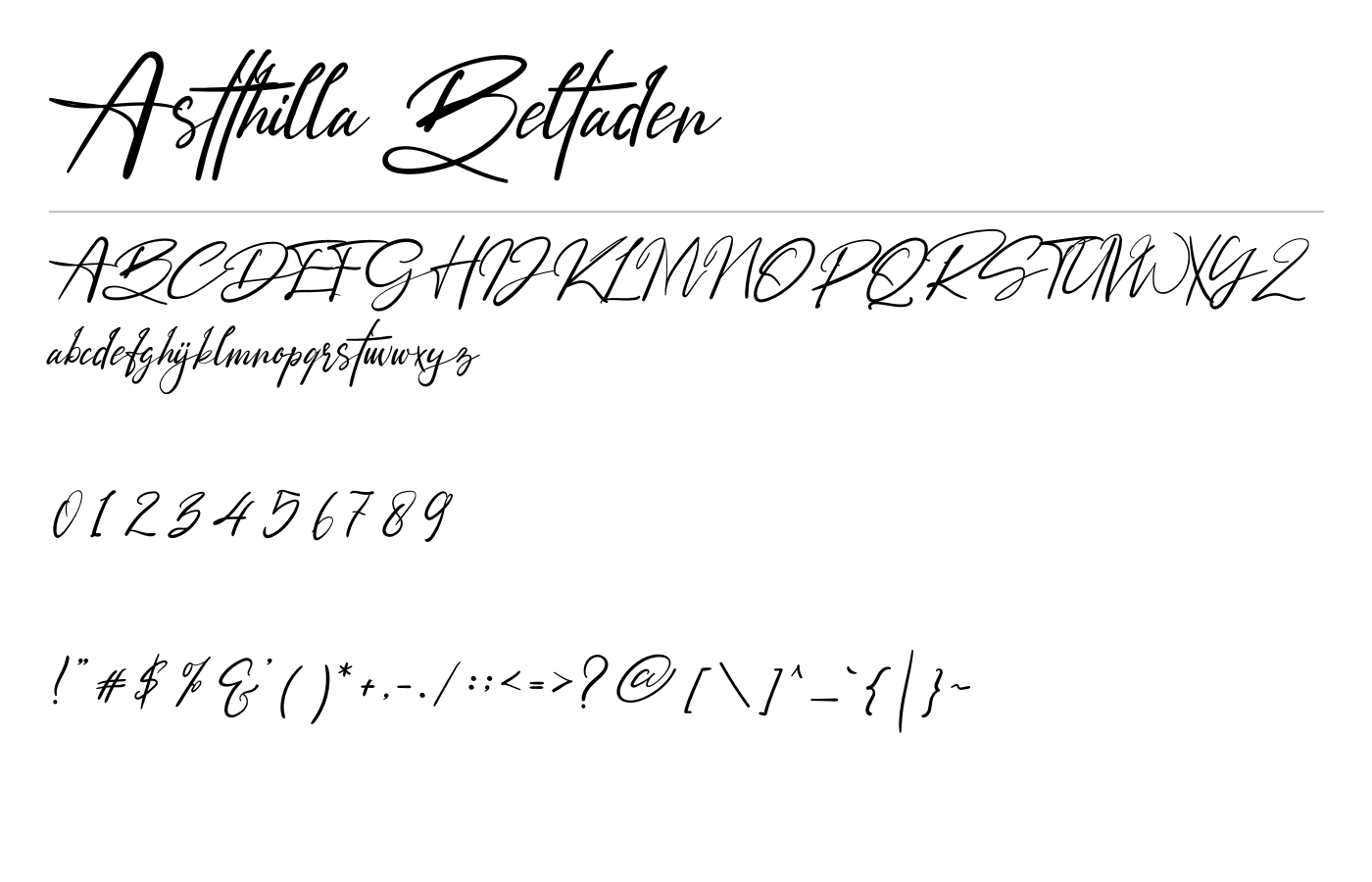
Astthilla Beltaden is a slender, elegant script font with a modern, handwritten feel that combines fine strokes with graceful curves. Its tall, narrow letterforms and fluid, connected characters create a sophisticated and artistic look, perfect for adding a personal, refined touch to invitations, branding, and stylish editorial designs. This font works best where a delicate, expressive aesthetic is desired to convey charm and creativity.
Astthilla Beltaden Font
About Astthilla Beltaden Font